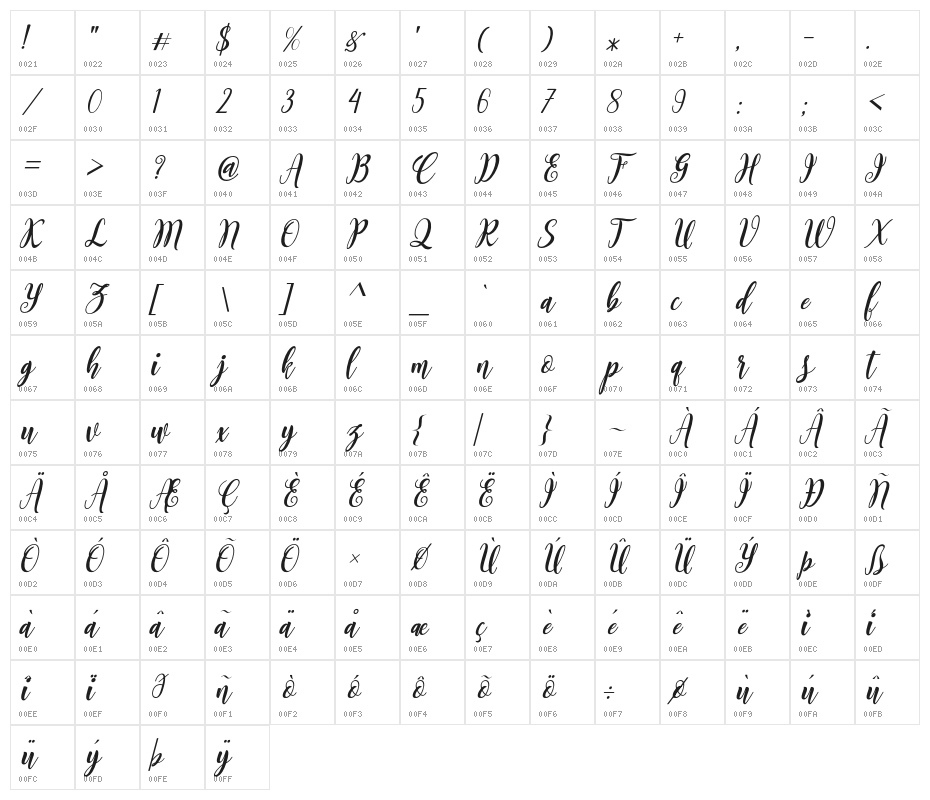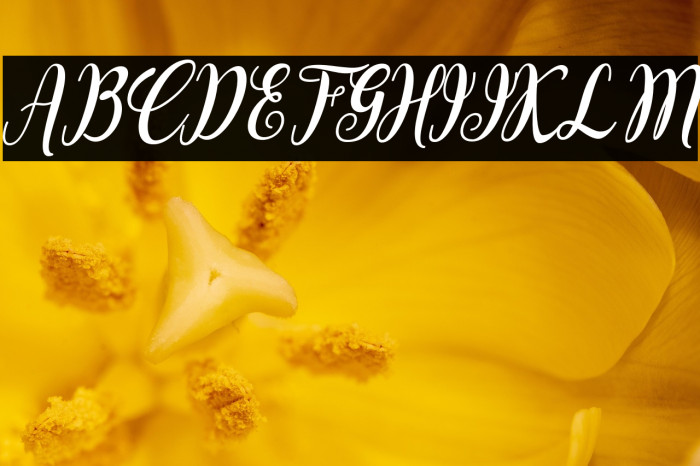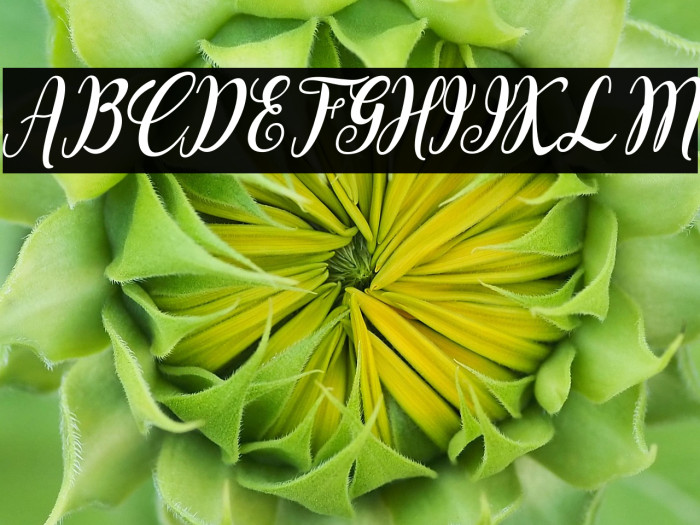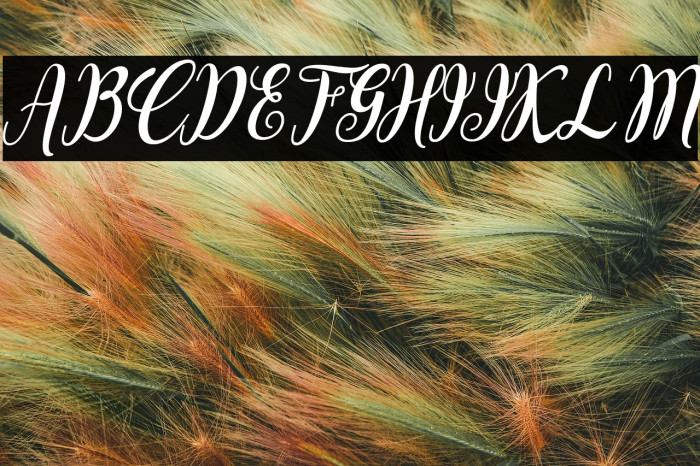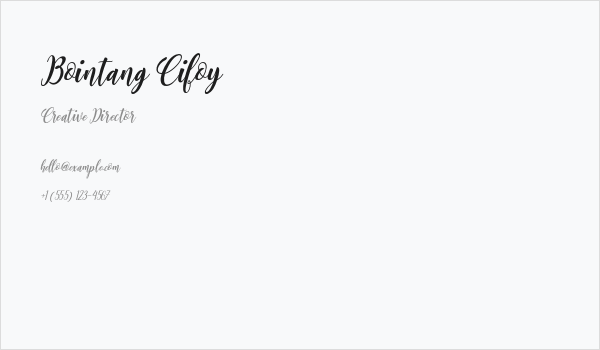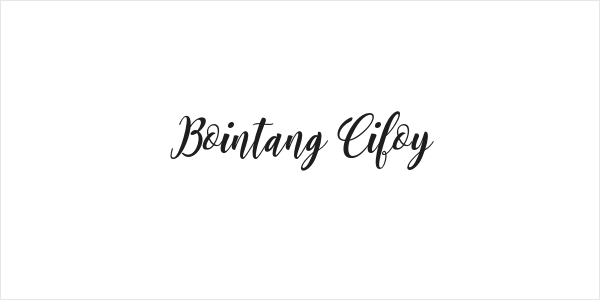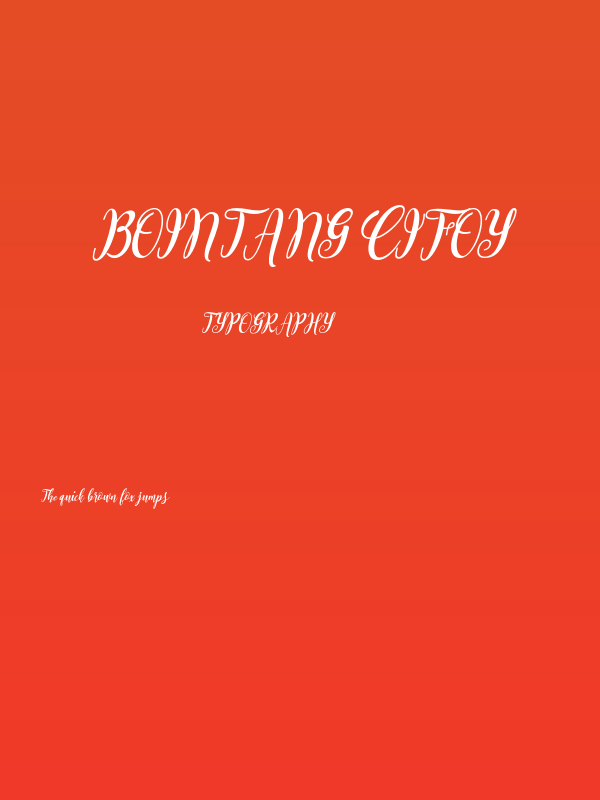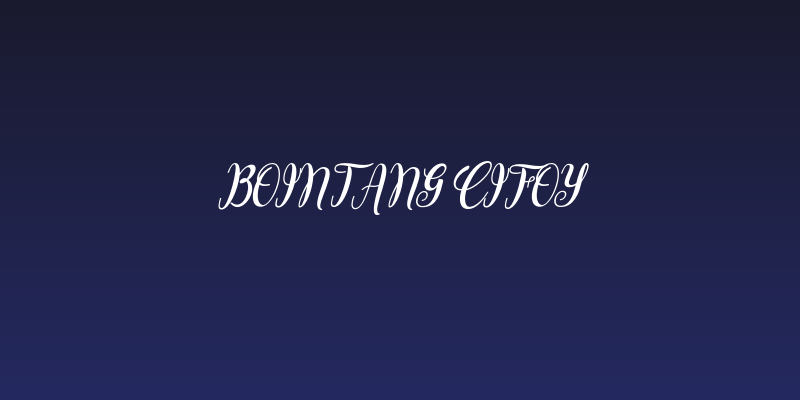
Bointang Cifoy Font
Bointang Cifoy Description
This font features an elegant and flowing script style, characterized by its smooth, cursive letterforms that exude a sense of sophistication and grace. The uppercase letters are ornate, with sweeping curves and flourishes, while the lowercase letters maintain a consistent flow, enhancing readability. The numerals are designed to match the script style, maintaining a cohesive look. Special characters are included, each crafted with the same attention to detail, ensuring versatility in various design contexts. The overall appearance is both stylish and timeless, making it suitable for a wide range of applications.